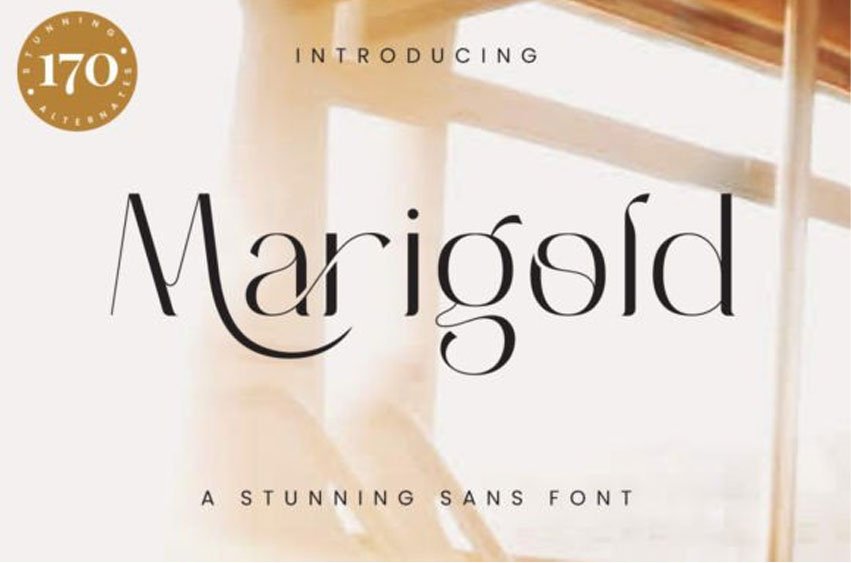
Marigold Sans Font is a stunning sans-serif font with stylish and modern alternates. Marigold is perfect for logos, wedding stationery, cards, gift designs, photography, watermarks, product packaging, and handwritten quotes.
This font is PUA encoded, which means you can access all of the glyphs and swashes with ease!